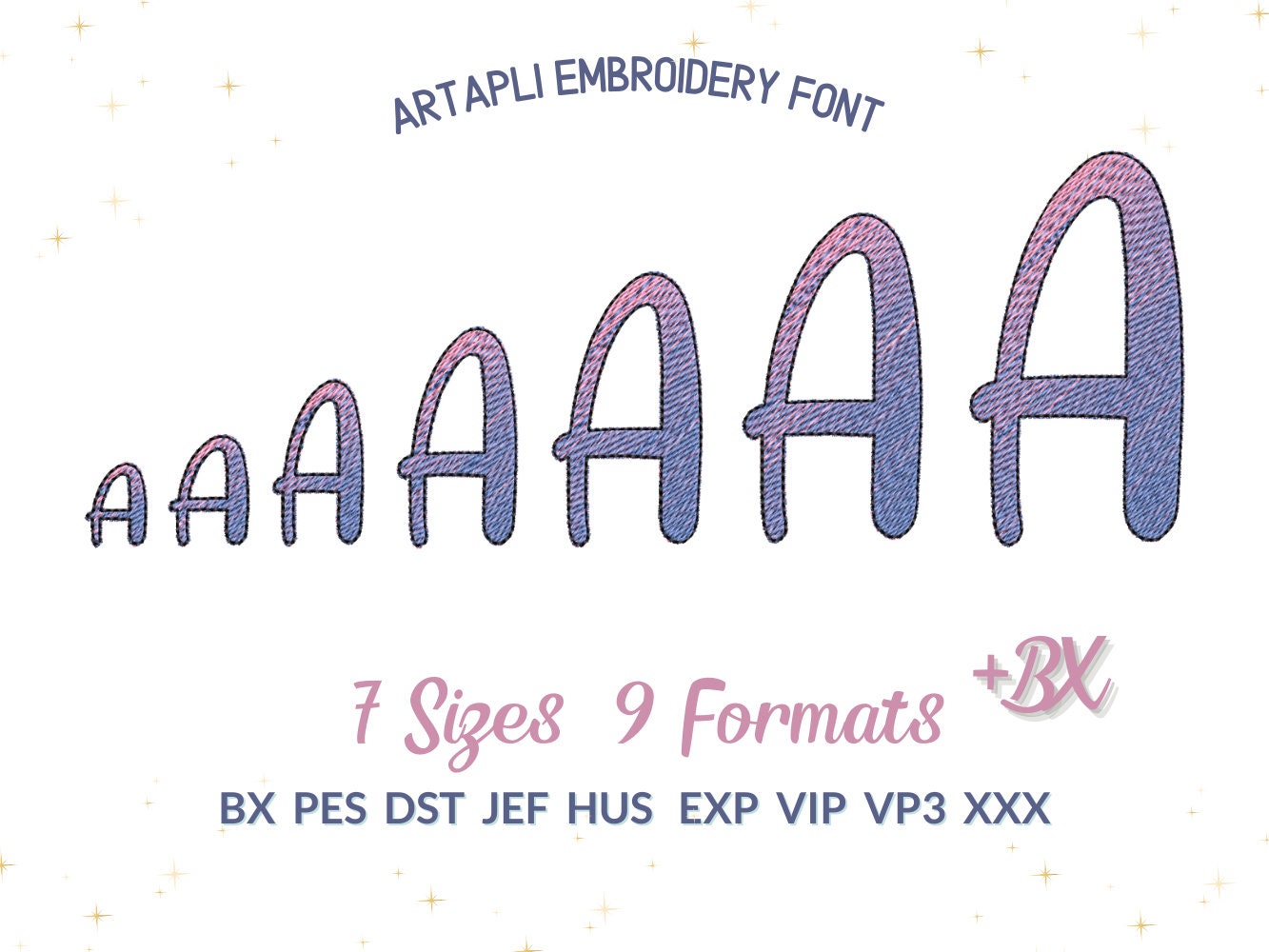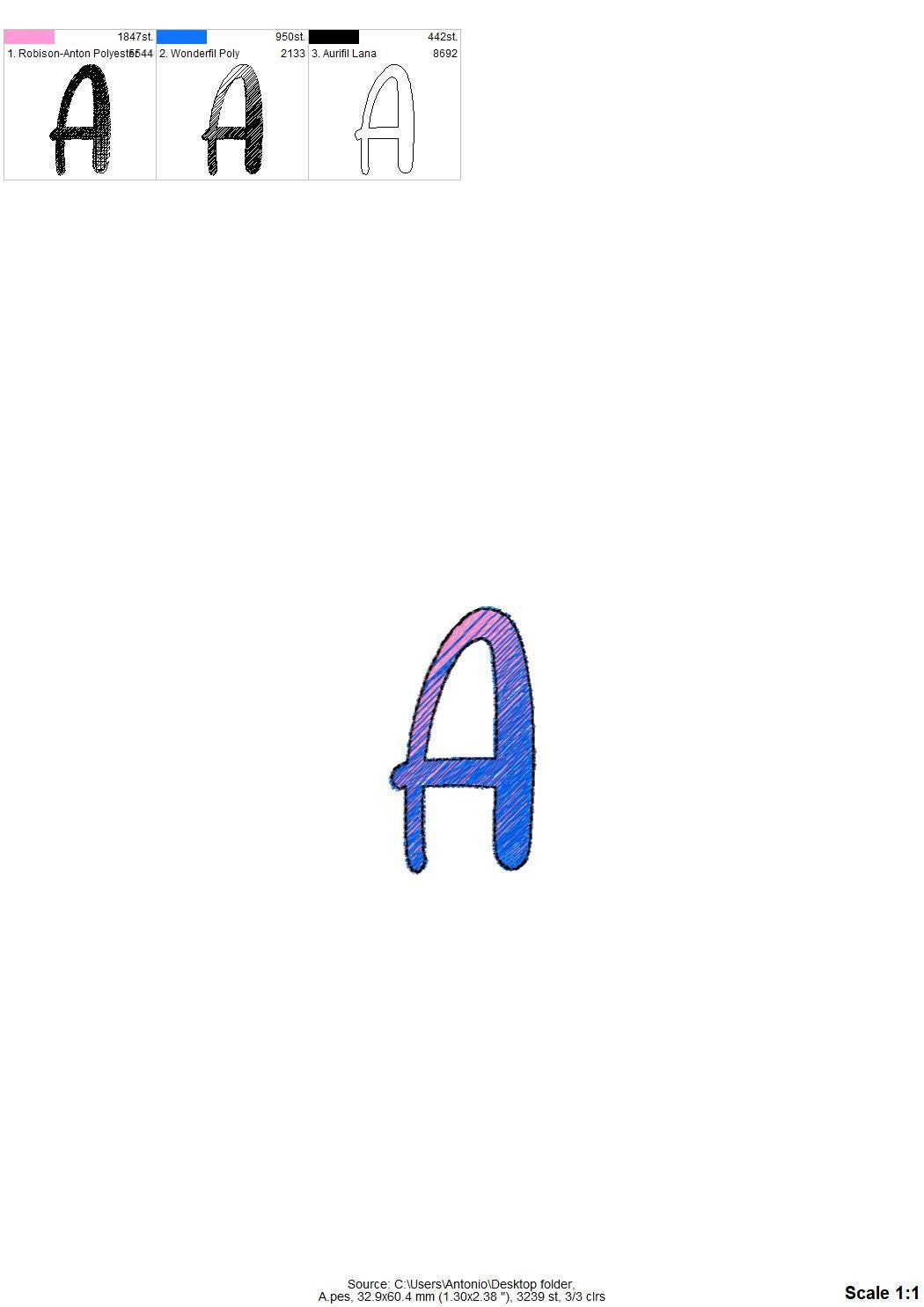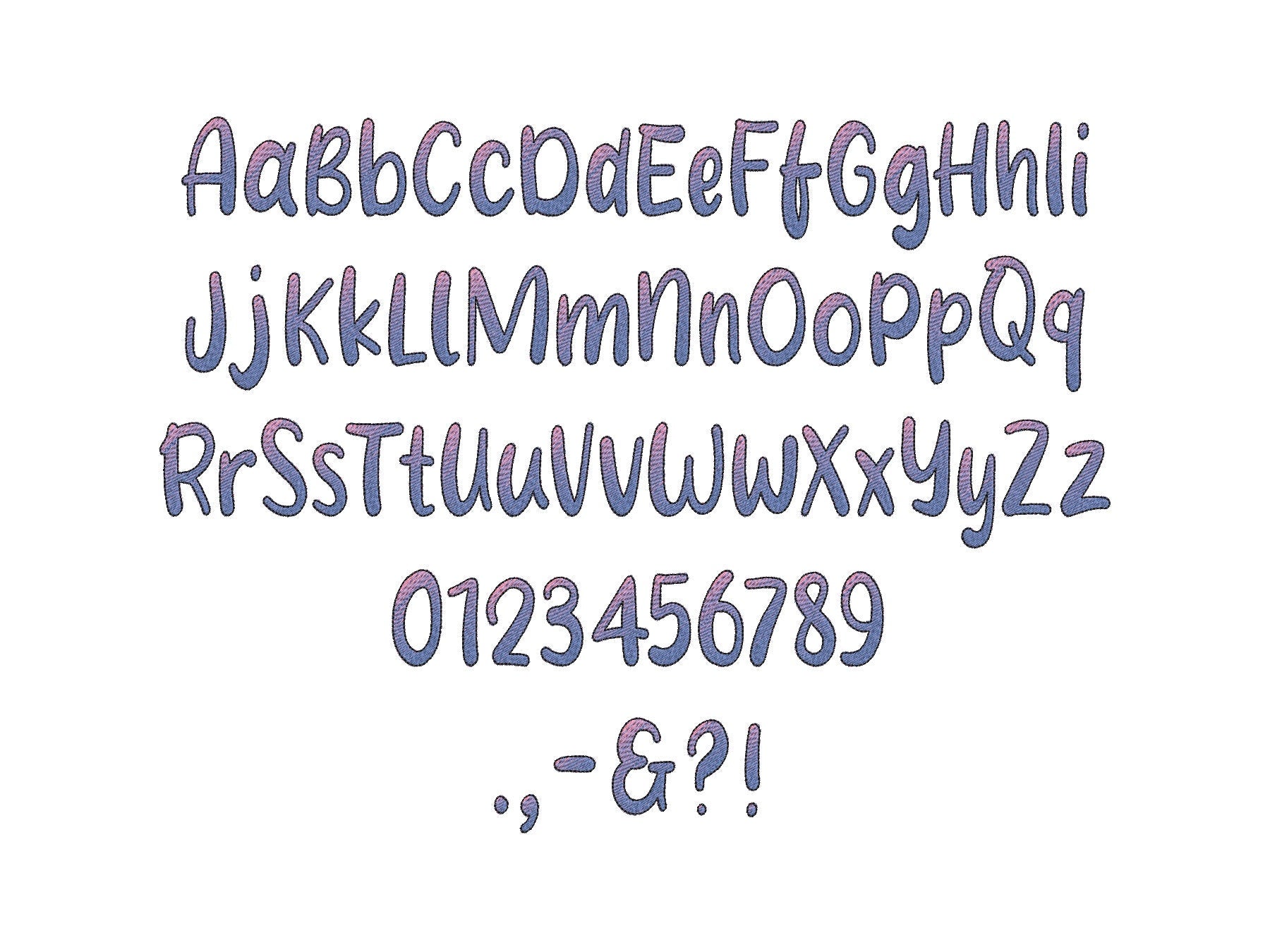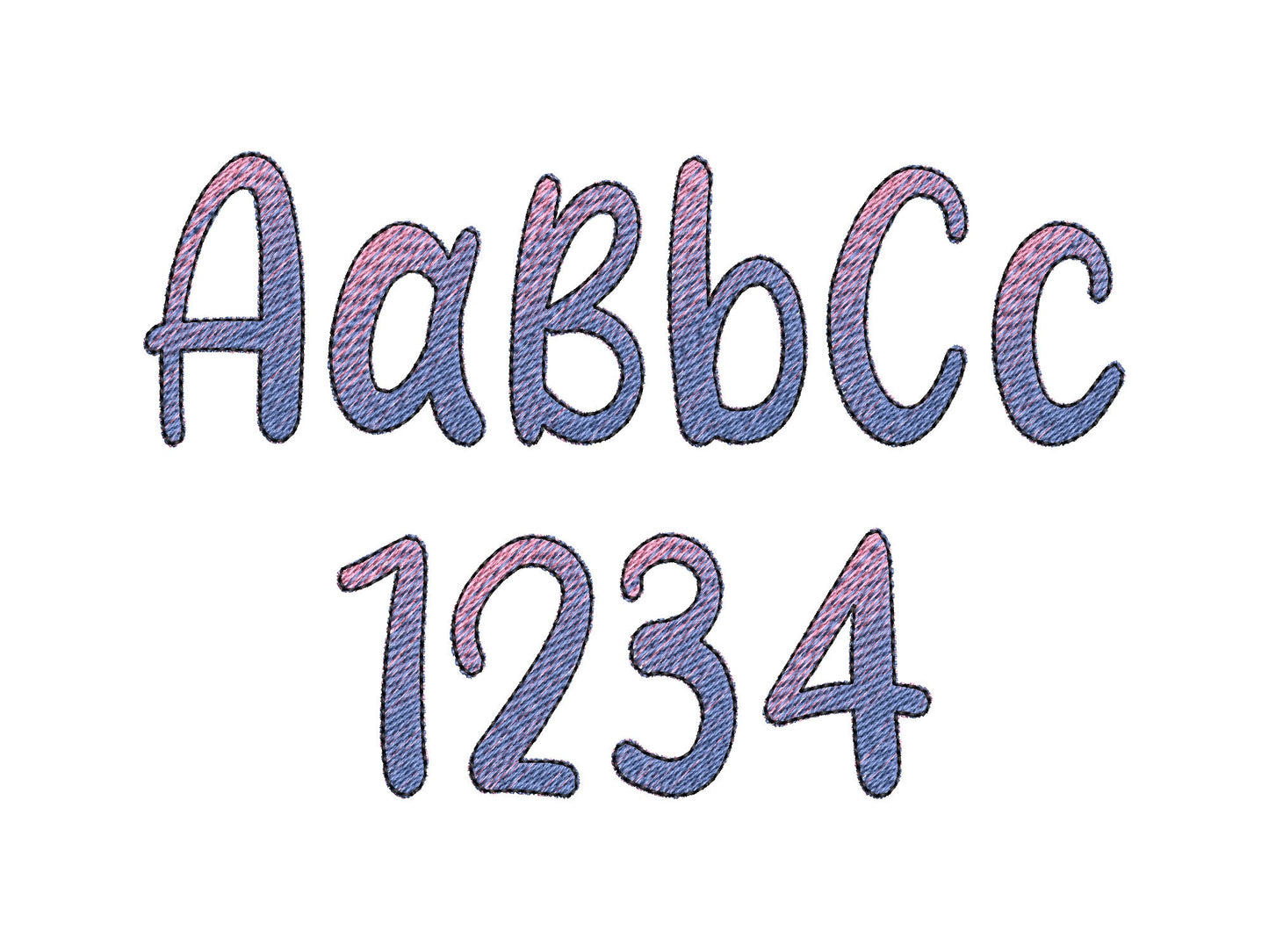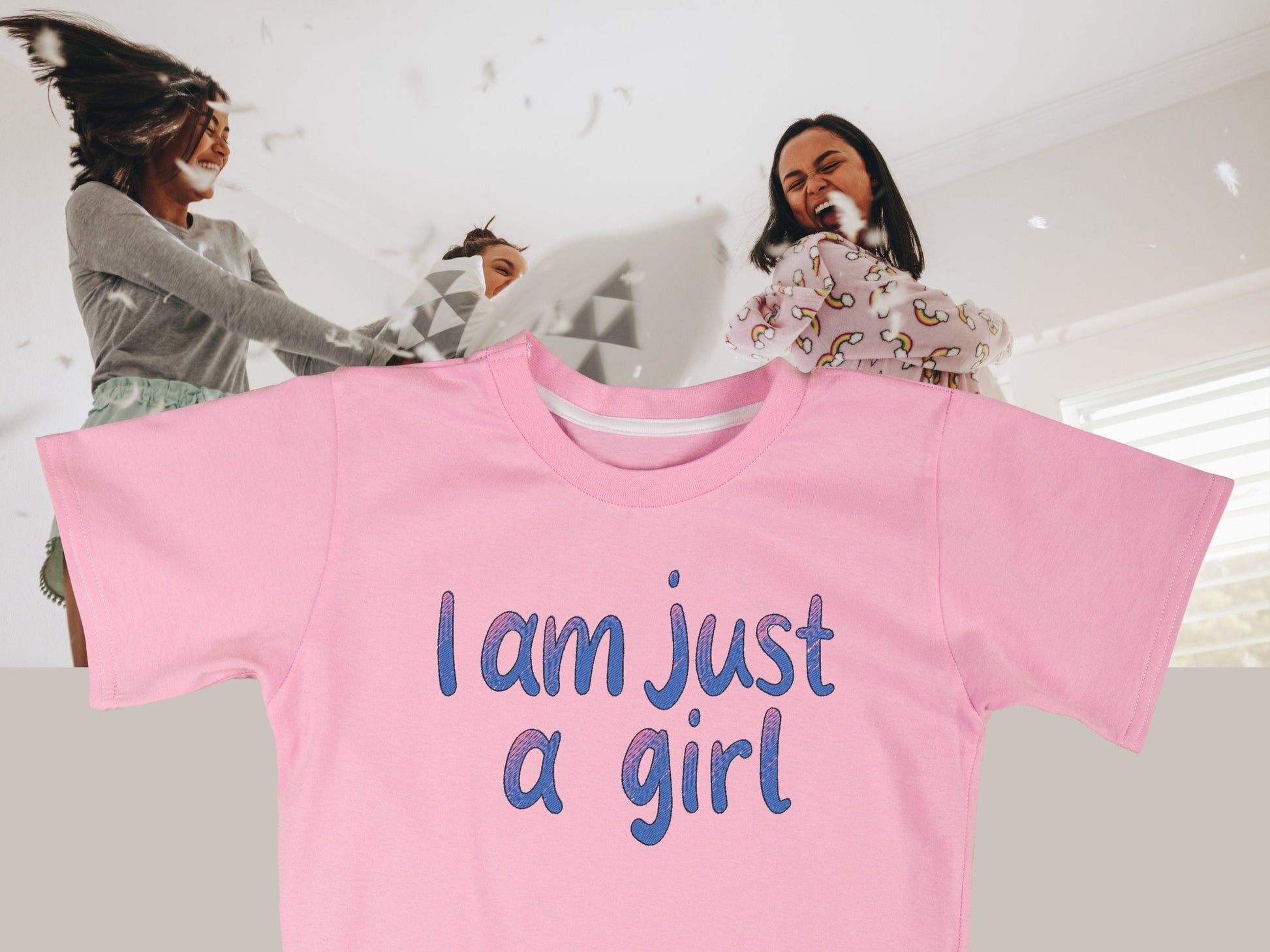
Or click to open the linkA rainbow iridescent font with an outline, made with ordinary solid threads. No special thread needed. Fun for kids' names, monograms and bright gifts.
The letters come in seven sizes: 0.7, 1, 1.5, 2, 2.5, 3 and 3.5 inches. Each letter is filled with two regular thread colors that blend into an iridescent effect, then finished with an outline. Includes uppercase and lowercase letters, numbers 0 to 9 and punctuation.